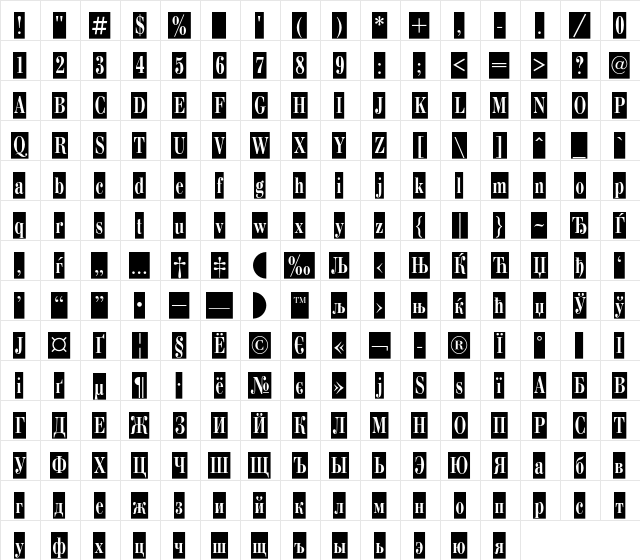
BodoniCondCameoC Regular
Design Context for BodoniCondCameoC Typeface
BodoniCondCameoC takes a measured approach to typography — its balanced proportions and neutral character make it a reliable workhorse for both digital and print work. The condensed width makes it efficient for tight spaces without sacrificing legibility.